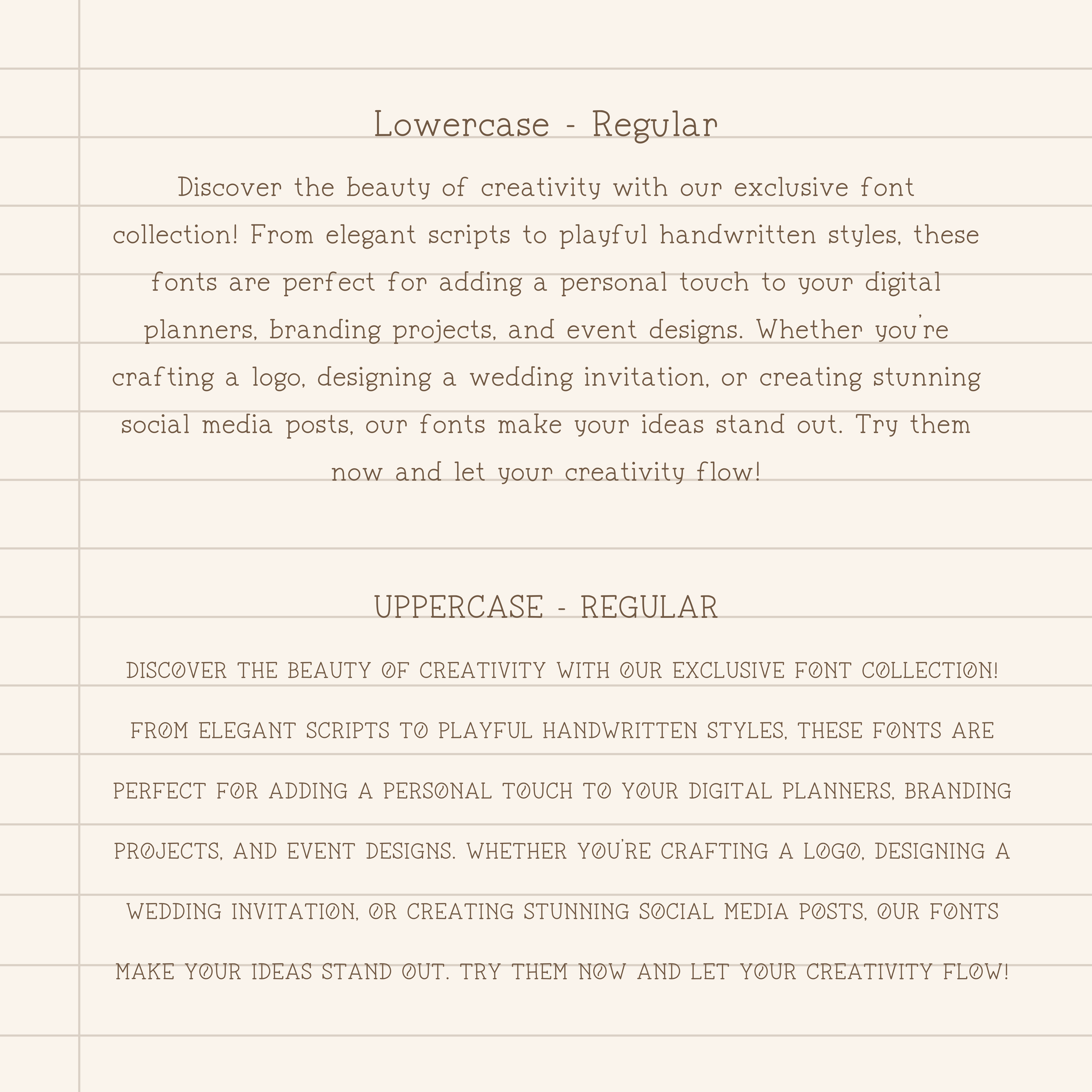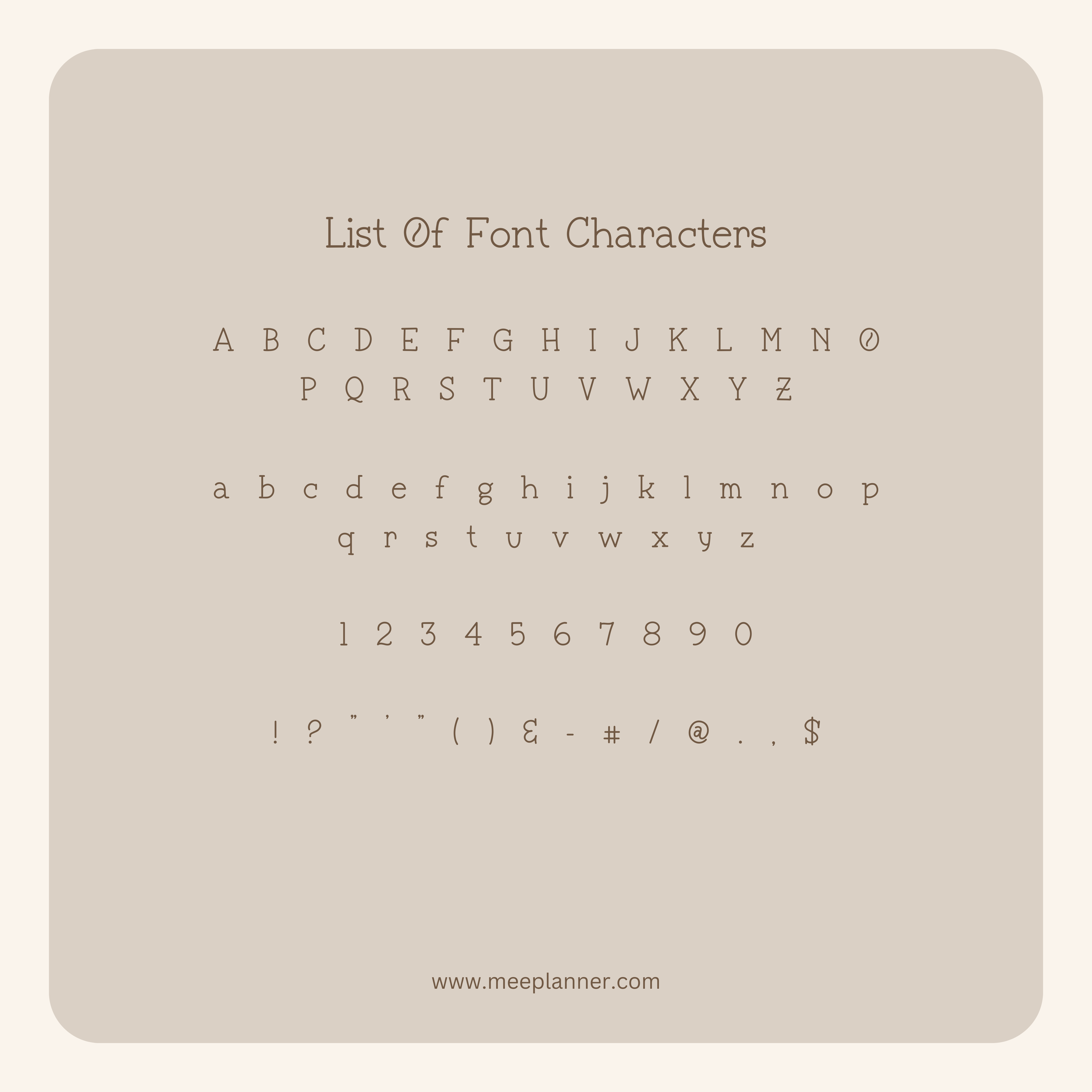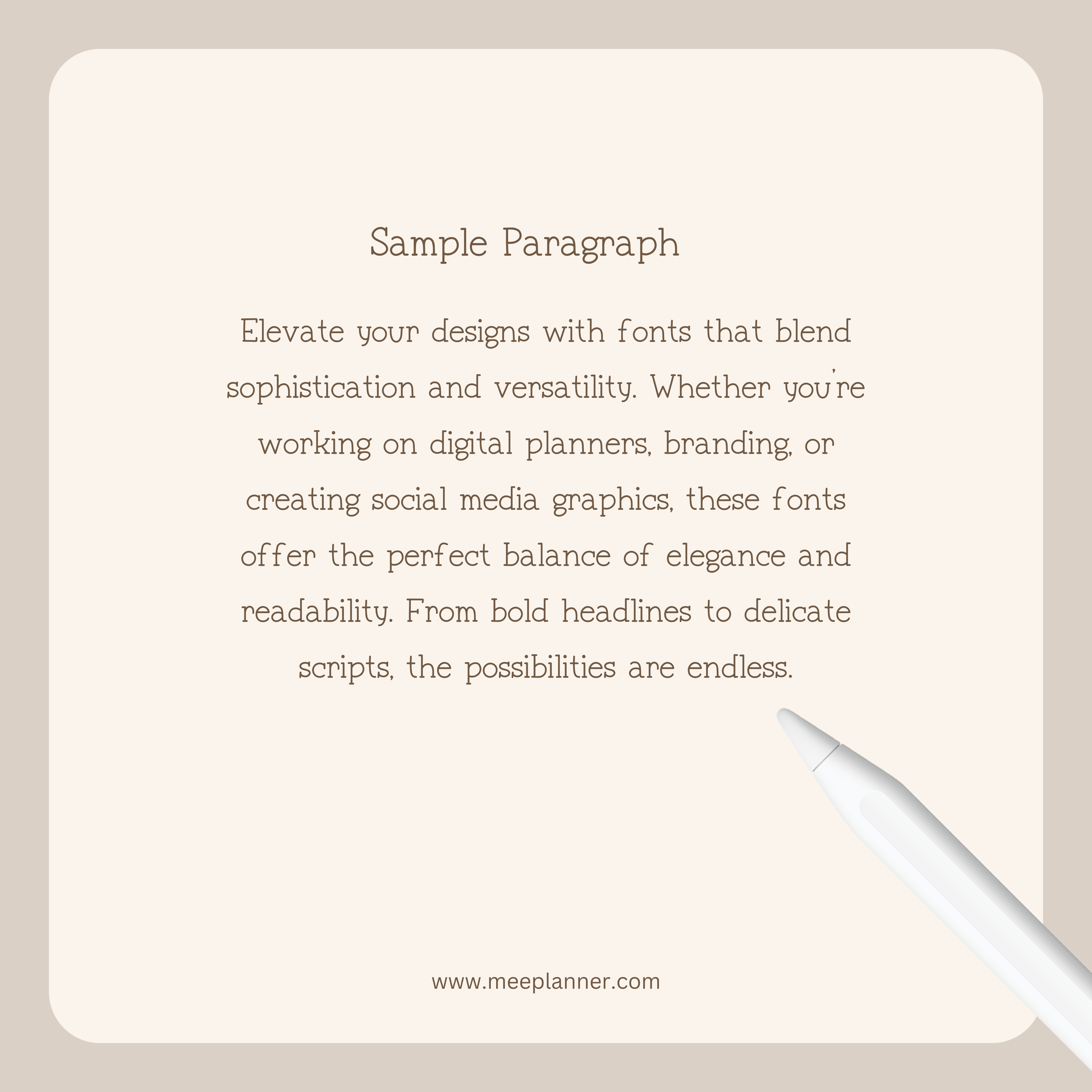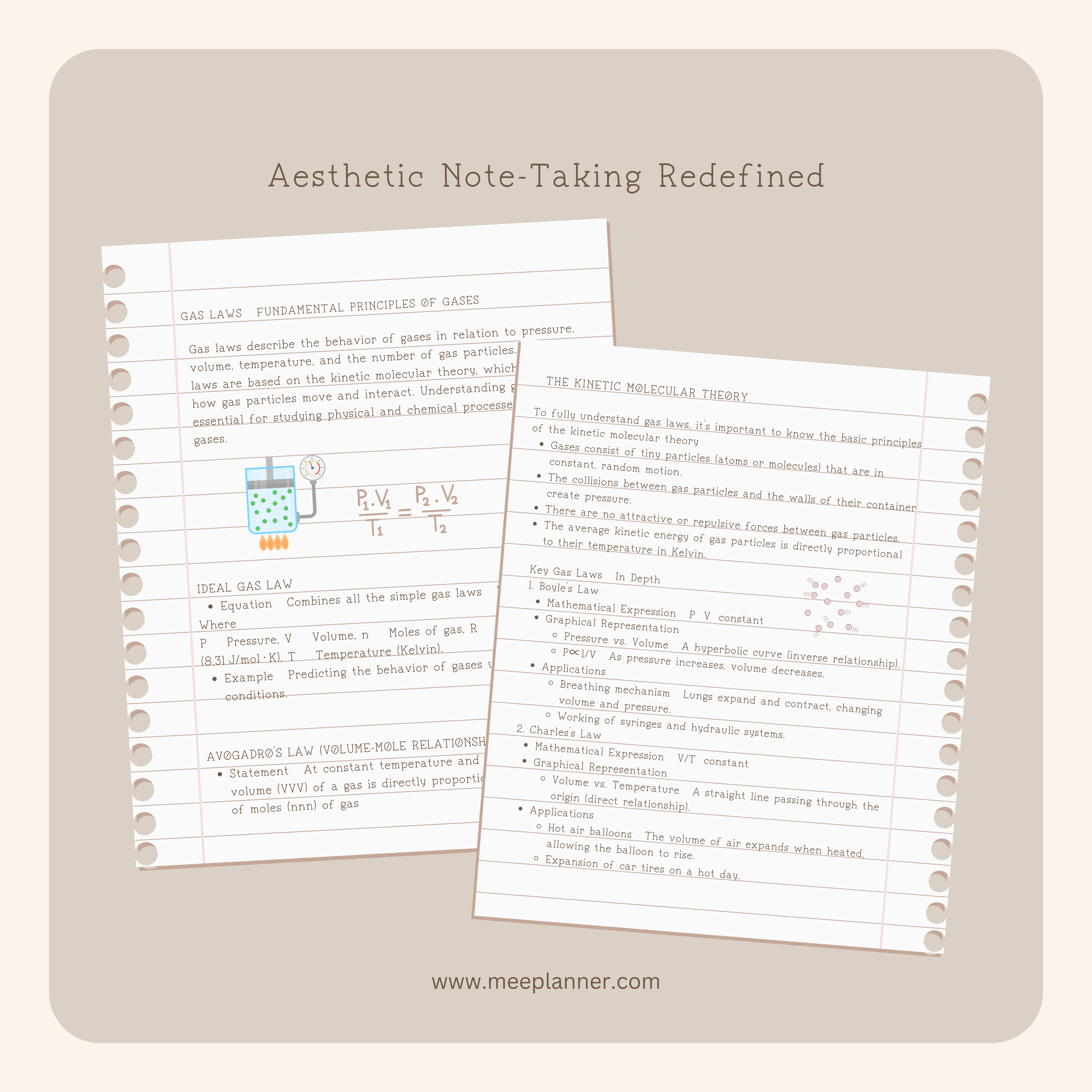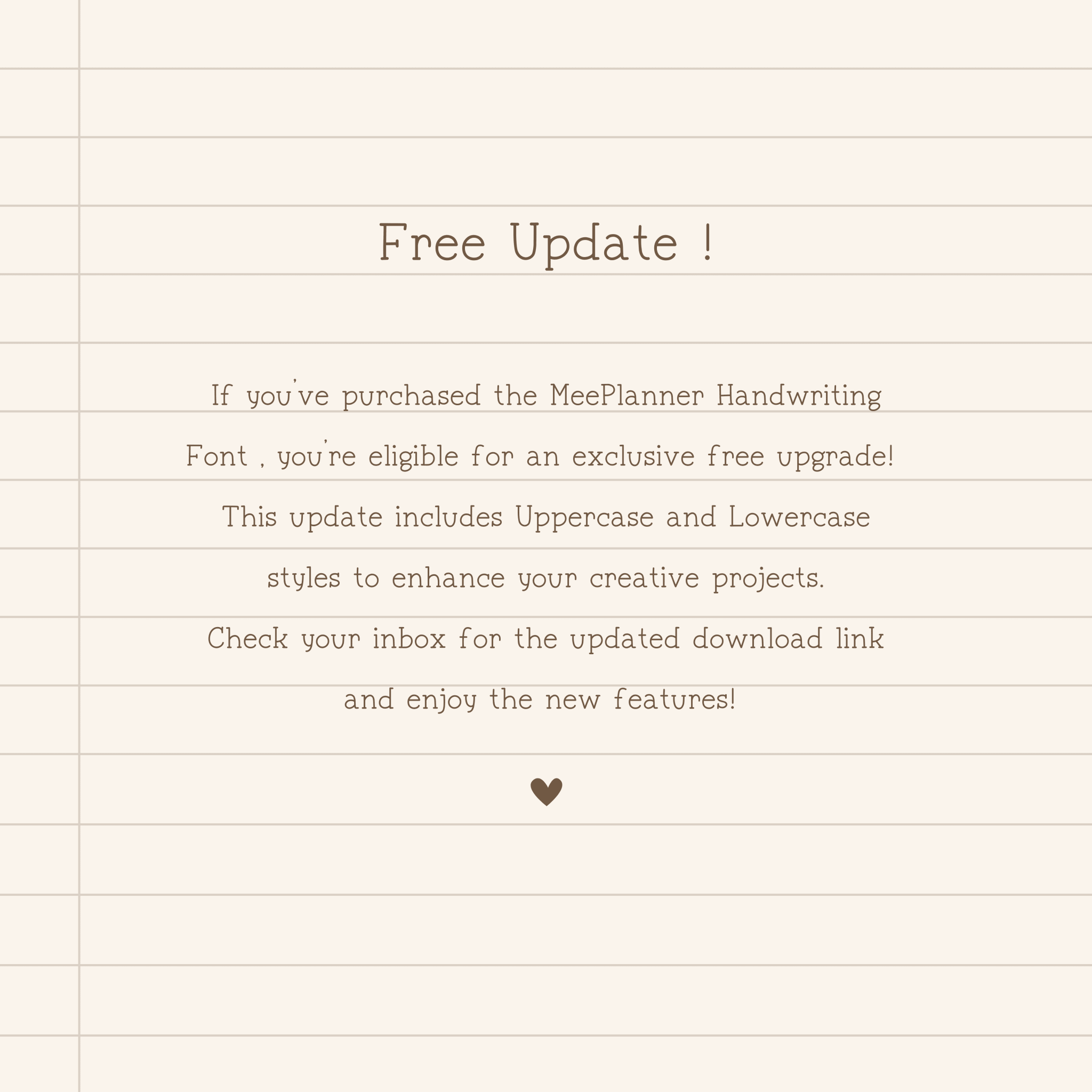
Embrace elegant design with style
Discover the charm of our aesthetic handwriting font, crafted to transform your text into beautiful works of art. Its unique cursive strokes provide a personal touch that is perfect for invitations, logos, and any project needing a refined appearance. Whether you're designing digital or print media, this font adapts effortlessly to enhance your work.
Perfect for various applications
This versatile font suits a range of needs. Use it for wedding invitations, business cards, or social media graphics where a classic look is essential. Its readability ensures clarity even in longer texts, while its elegance keeps viewers engaged. For designers, it adds an air of sophistication without overwhelming the overall composition.
Aesthetic Handwriting Font